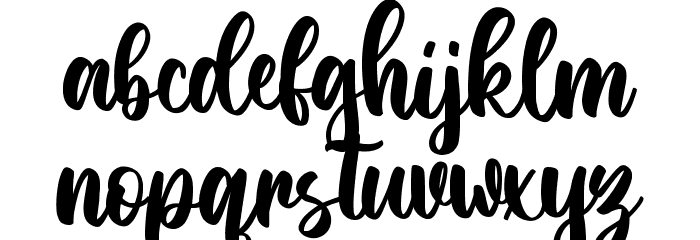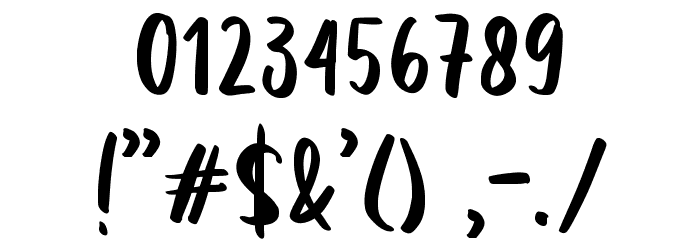
Maretta Santiago Font
This font exudes a lively and expressive character, featuring bold, flowing strokes that mimic the fluidity of handwriting. The uppercase letters are tall and elegant, with a slight slant that adds a dynamic feel. The lowercase letters maintain a consistent style, with smooth curves and loops that enhance readability while preserving a casual, artistic flair. The numbers are well-integrated, matching the overall aesthetic with their rounded forms and consistent weight. Special characters are thoughtfully designed, ensuring they blend seamlessly with the rest of the typeface. This font's bold presence and unique style make it ideal for creative projects that require a personal touch.
A bold, expressive script font with a lively, handwritten style.
- Proposed Projects: Ideal for branding, invitations, greeting cards, and social media graphics.
- Category: Script
- Use Case: Logos, Headlines, Invitations